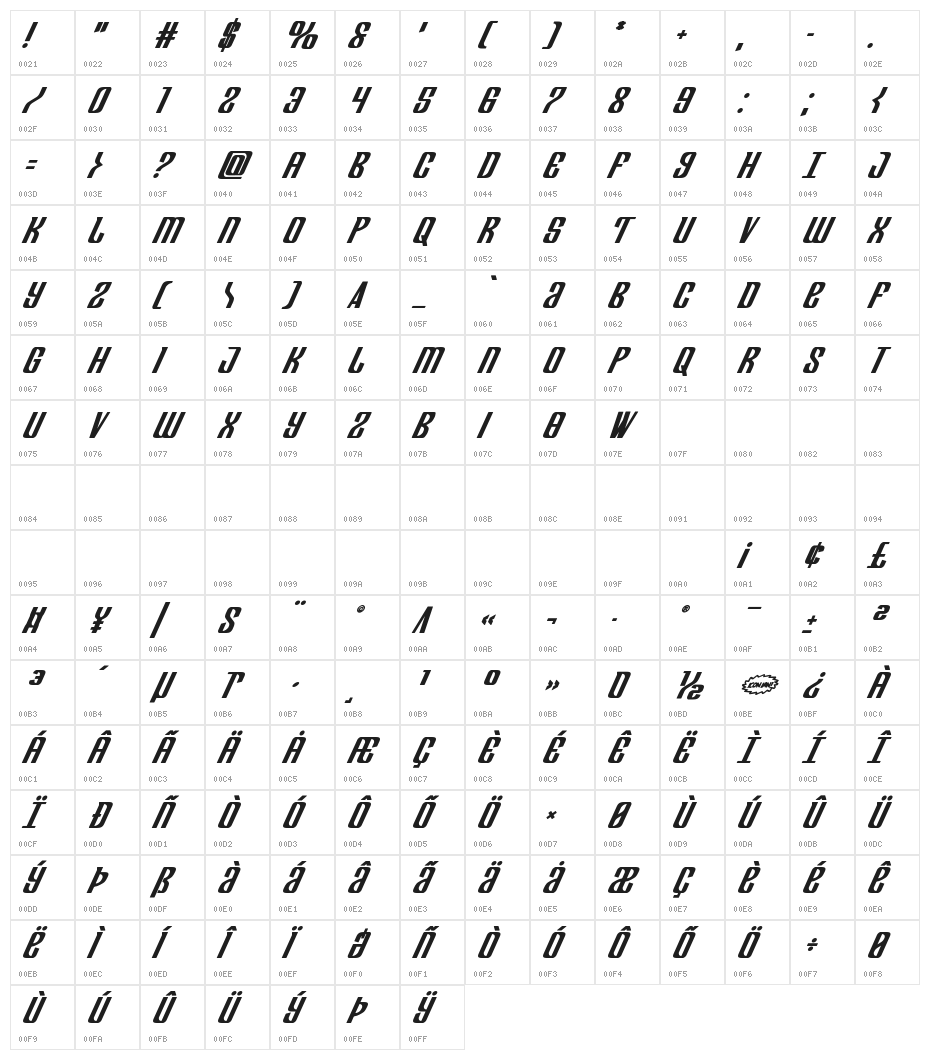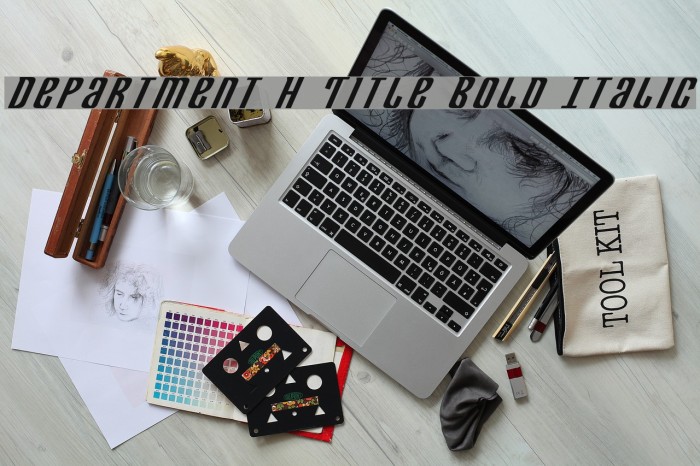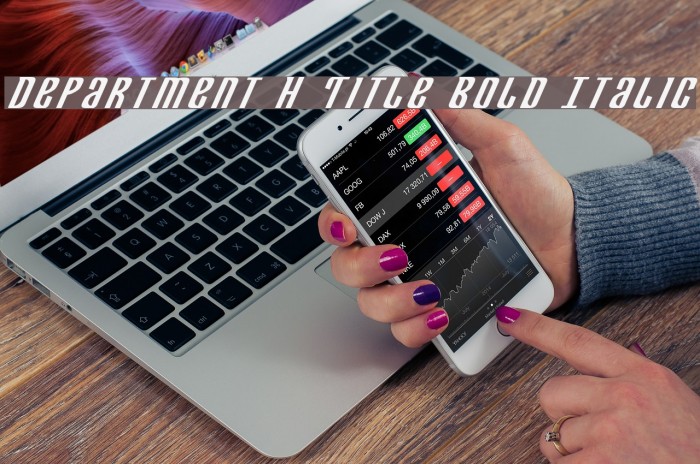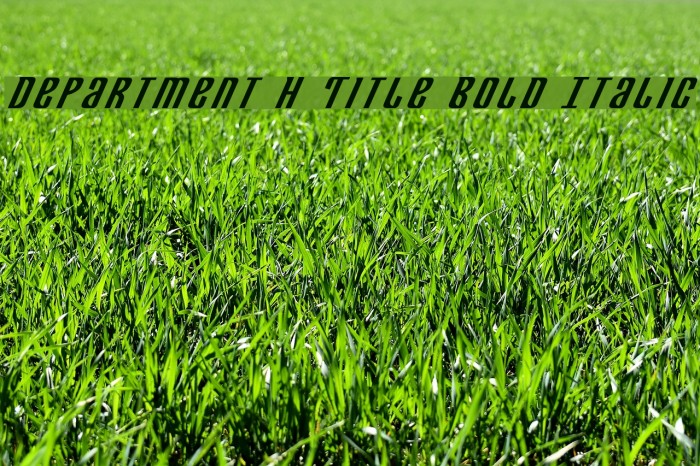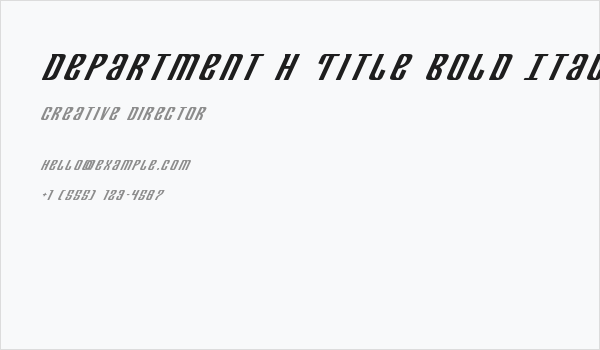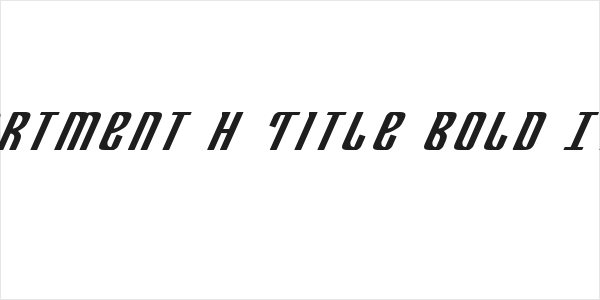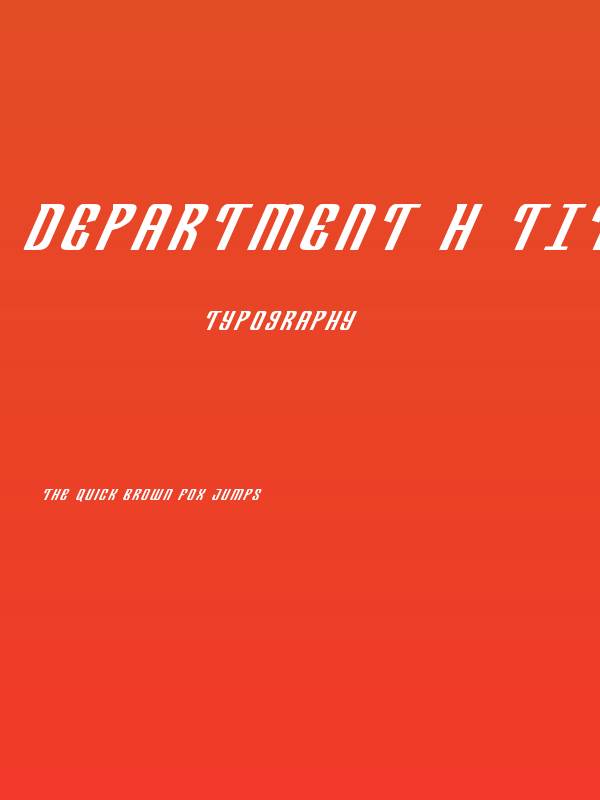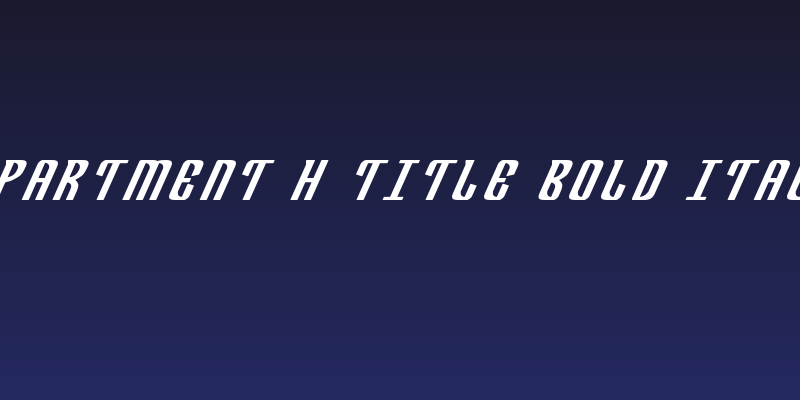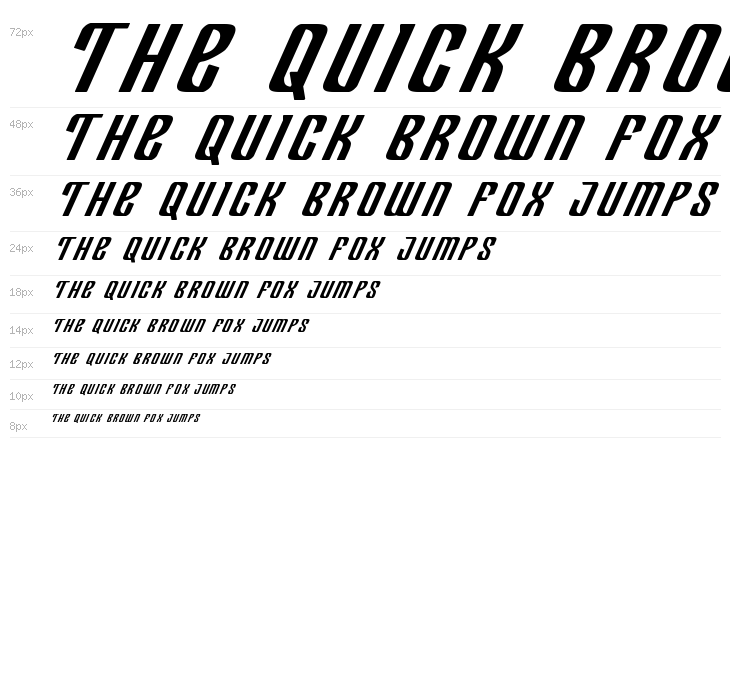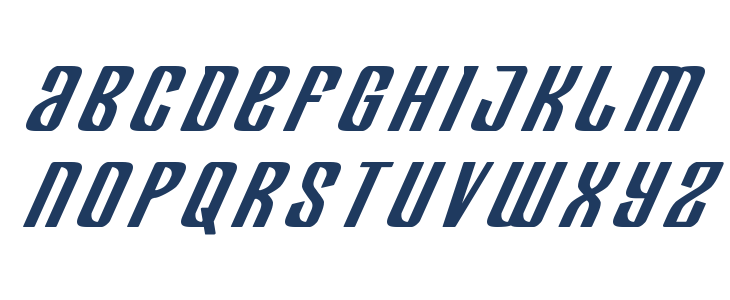
Department H Title Bold Italic Font
Department H Title Bold Italic Description
This font features a bold and italicized style with a modern, dynamic appearance. The characters are slightly slanted, giving a sense of movement and energy. The strokes are thick and consistent, providing a strong visual impact. The uppercase and lowercase letters maintain a uniform width, enhancing readability while retaining a unique flair. The numerals and special characters are designed to match the overall aesthetic, ensuring cohesion across different uses. This font is ideal for projects that require a bold statement, combining both elegance and assertiveness.
| Proposed Projects | Ideal for headlines, branding, posters, and any design needing a strong, energetic typeface. |